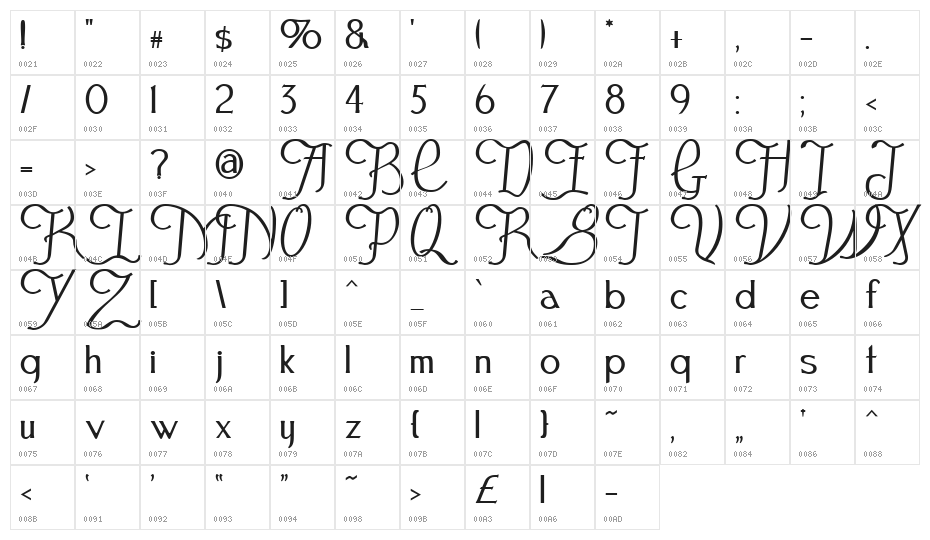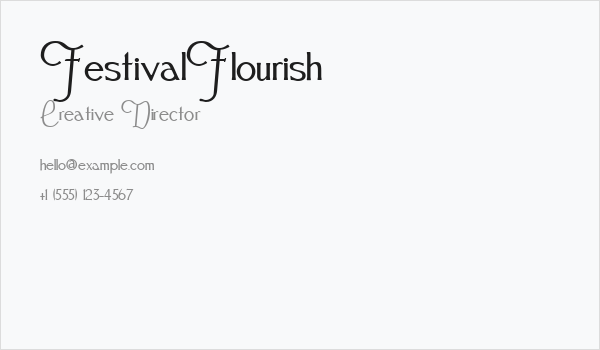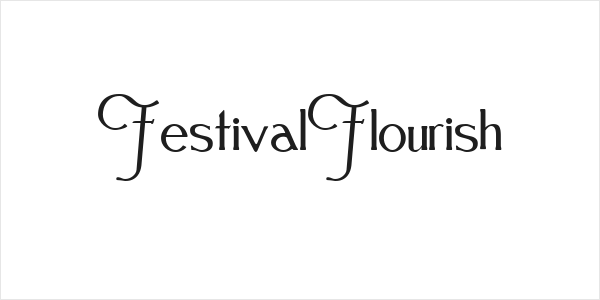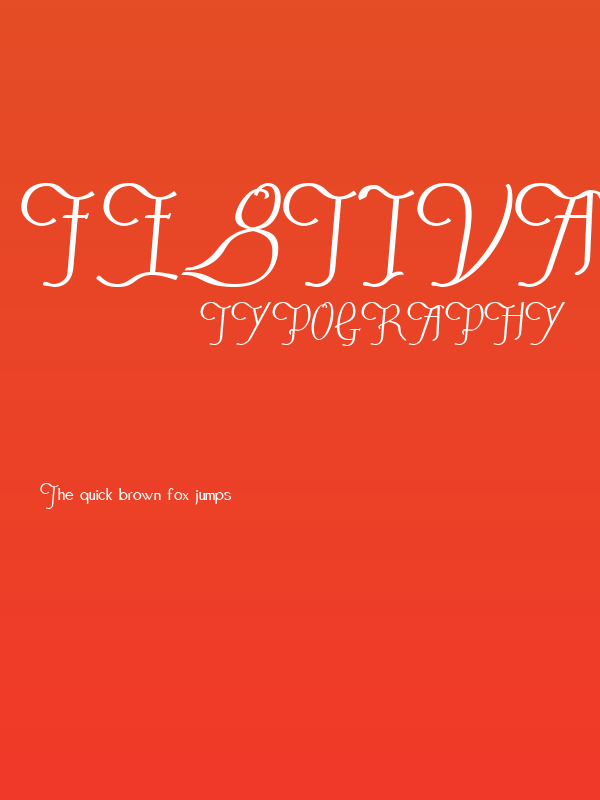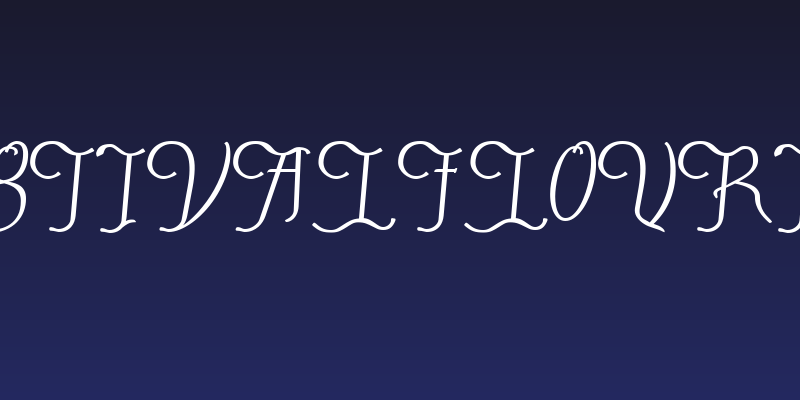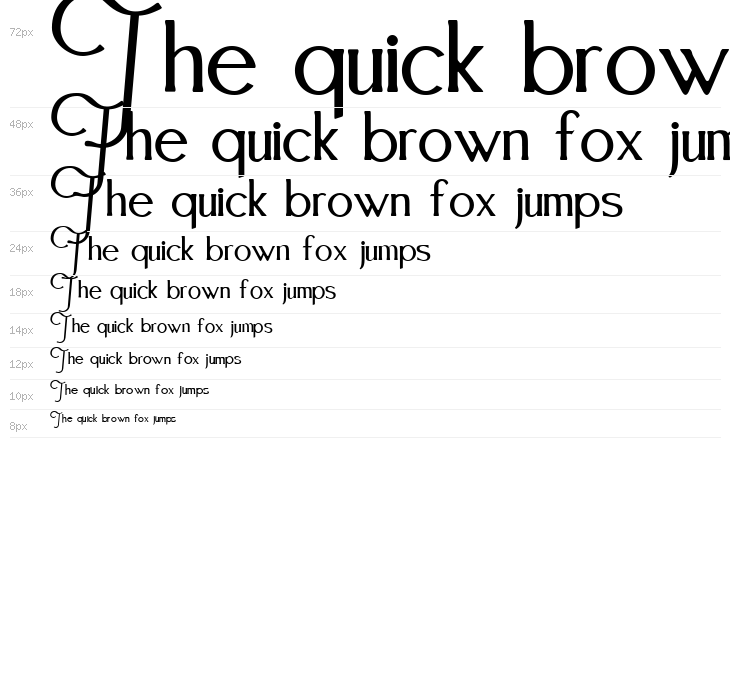
FestivalFlourish Font
FestivalFlourish Description
This font is a decorative display typeface characterized by its ornate and elaborate design. Each character is crafted with intricate details, featuring flourishes and embellishments that give it a festive and celebratory appearance. The letters are bold and eye-catching, making them ideal for attention-grabbing headlines and titles. The font's unique style is reminiscent of traditional calligraphy, yet it maintains a modern twist with its clean lines and structured form. The overall aesthetic is both elegant and playful, making it suitable for a variety of creative projects.
Proposed ProjectsIdeal for wedding invitations, festive event posters, branding for luxury products, and decorative signage.